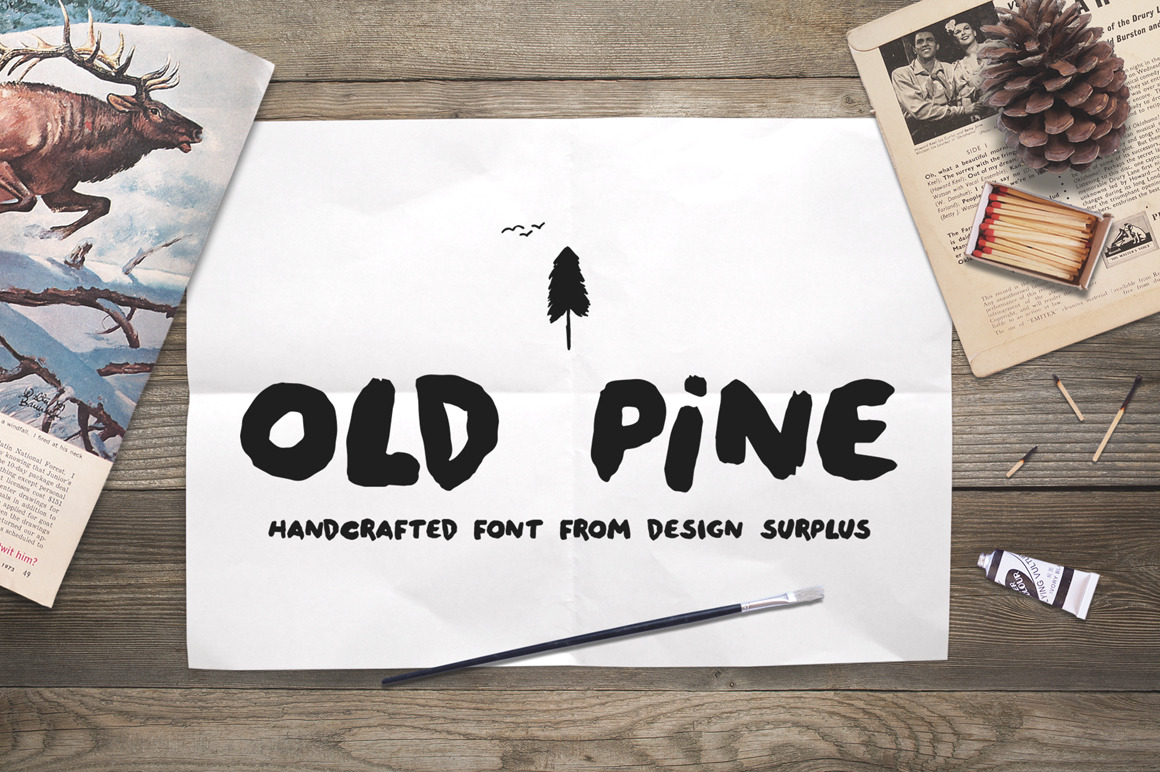
Old Pine Font + Extras
Stay true to the great outdoors with Old Pine, the new handcrafted brush font from Design Surplus. Old Pine includes a collection of upper and lower case letters that work together seamlessly when mixed. Old Pine Extras is a bonus hand painted dingbat font to match the Old Pine lettering.
OLD PINE FEATURES
Old Pine comes complete with interchangeable upper and lower case characters and 18 wilderness icons. The second in a new brush font collection from Design Surplus, Old Pine is the younger, shorter, more rebellious brother of Tiny Moose (https://creativemarket.com/DesignSurplus/269966-Tiny-Moose-Font) Old Pine Extras is a dingbat font with 18 wilderness icons such as trees, leaves, a mushroom, acorn and birds.
OLD PINE USES
See the above images. Old Pine looks great on anything from packaging to menus and logo design.